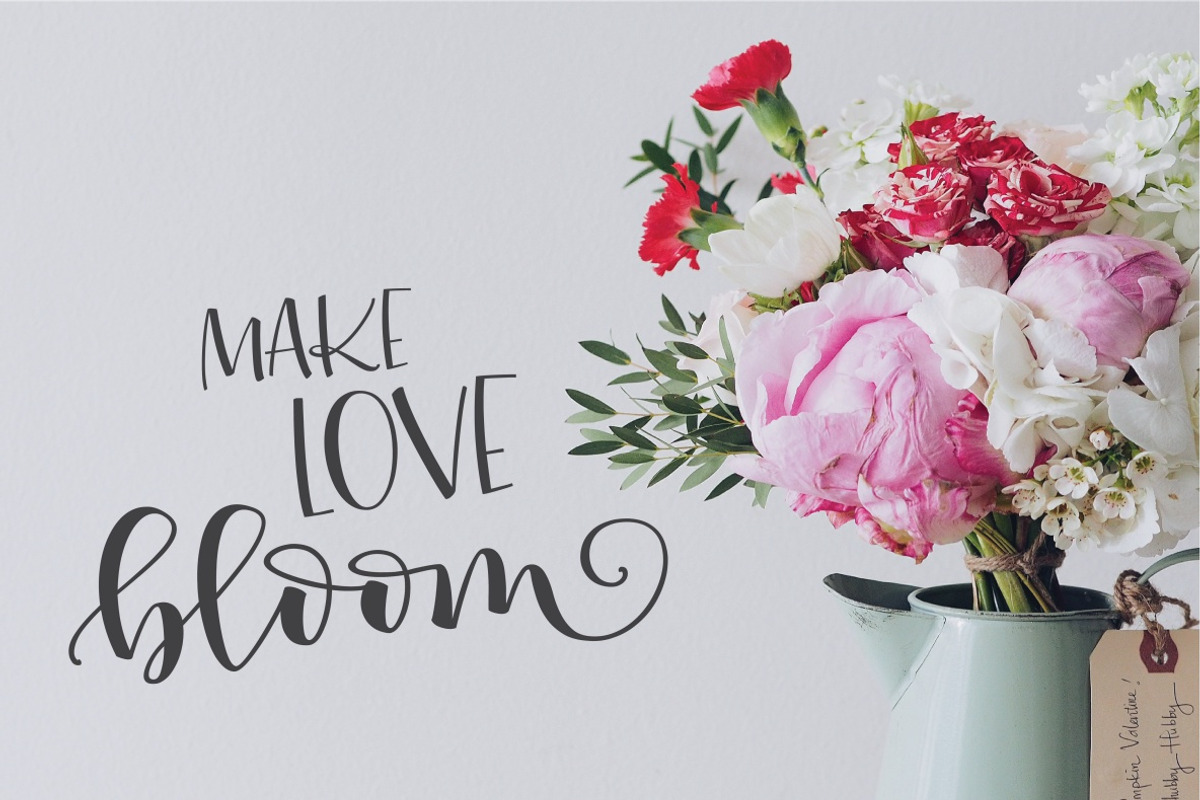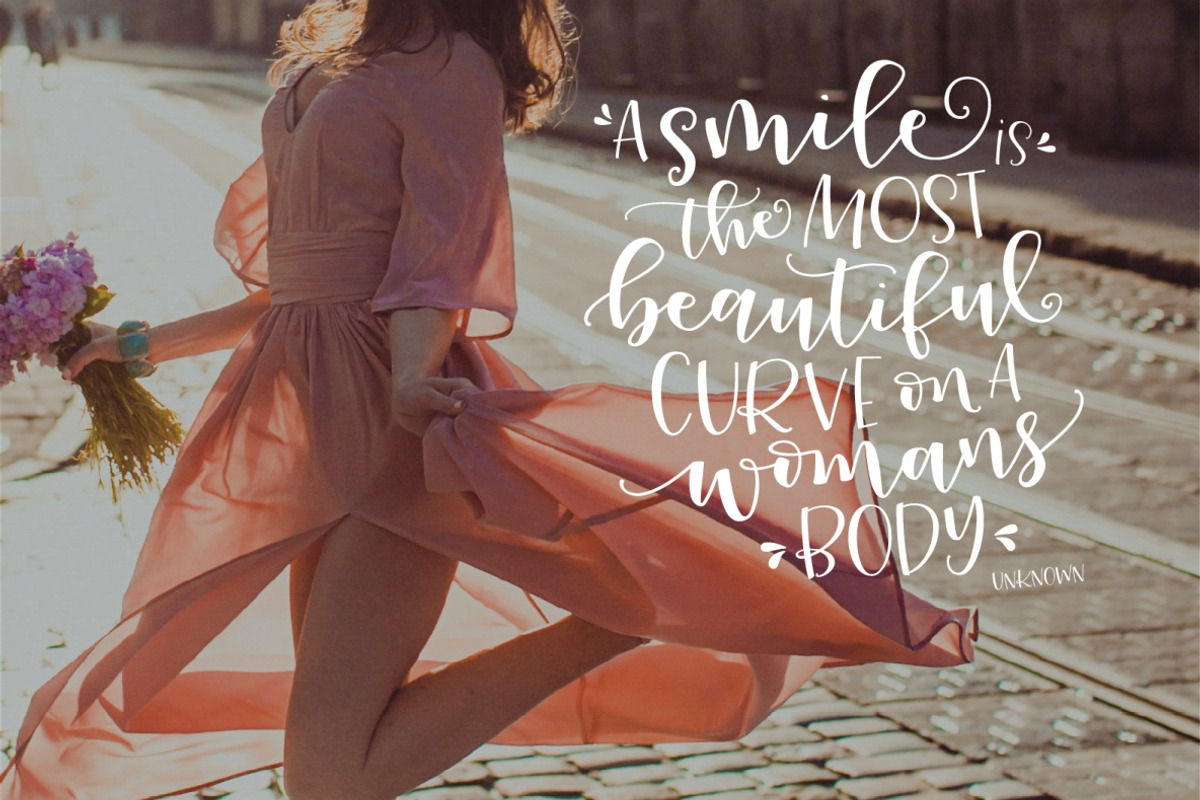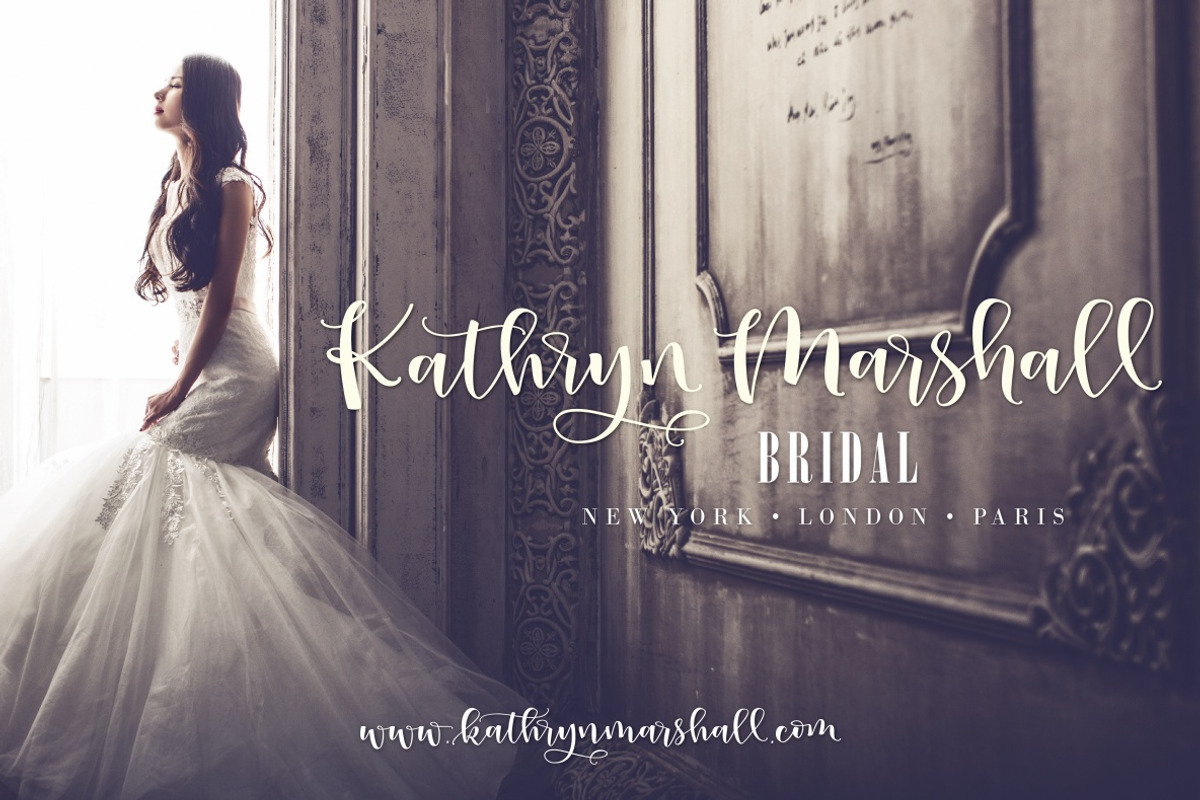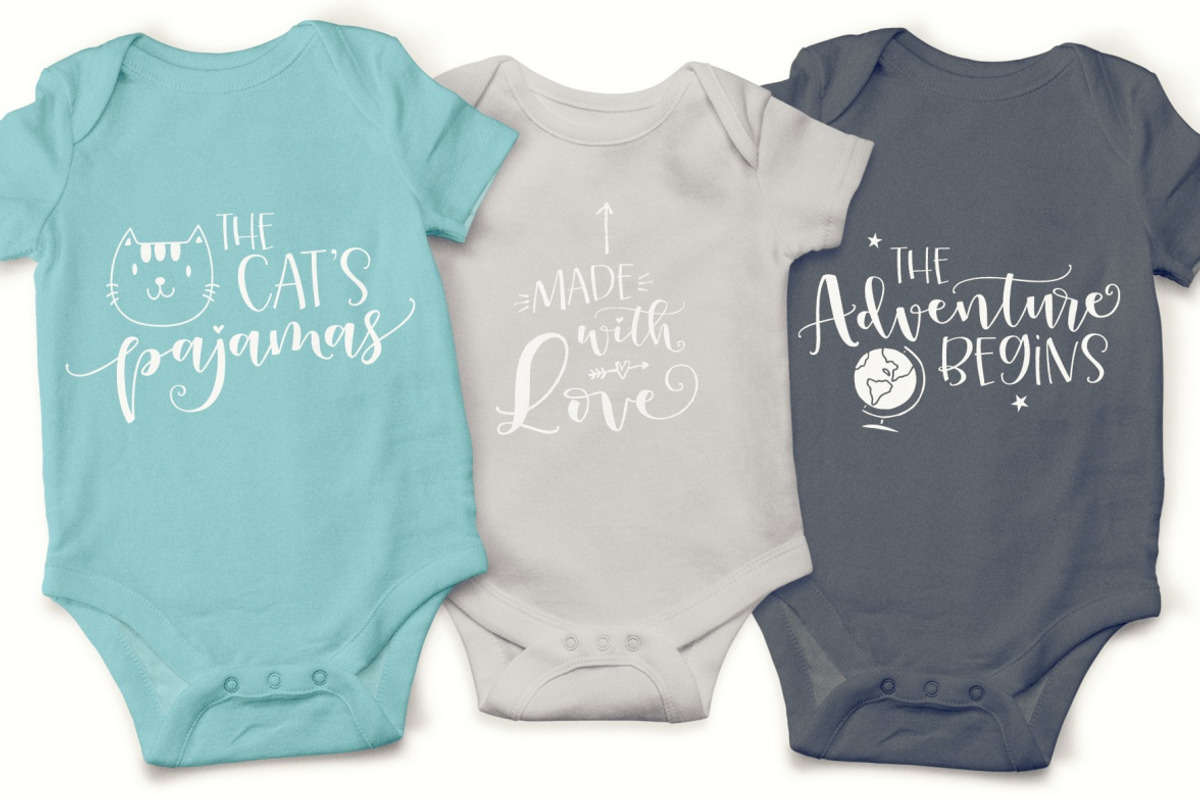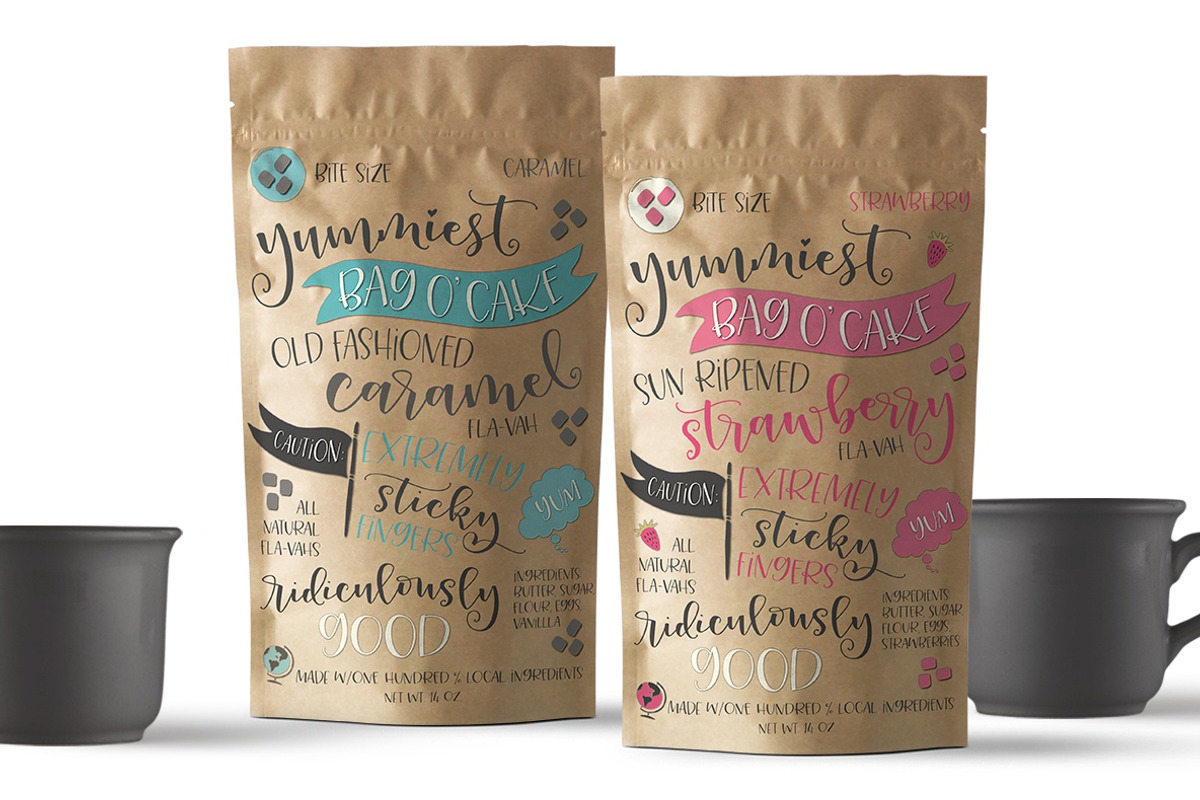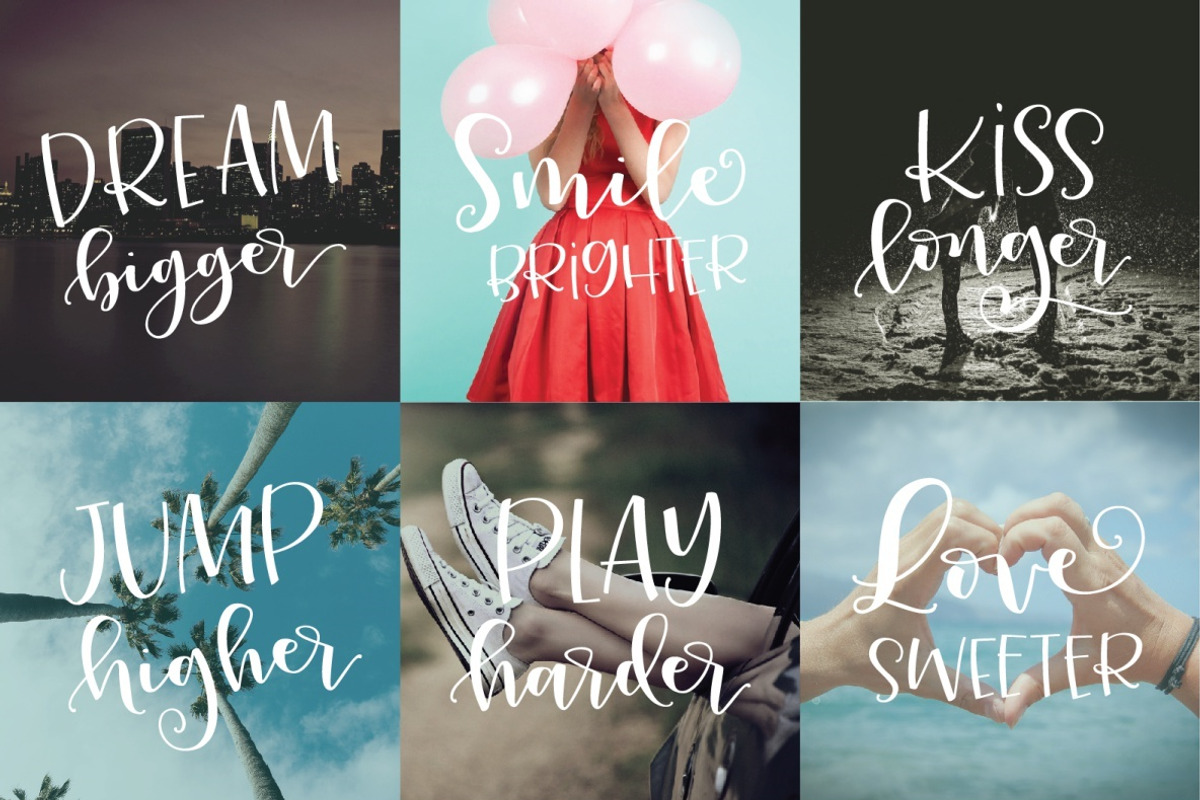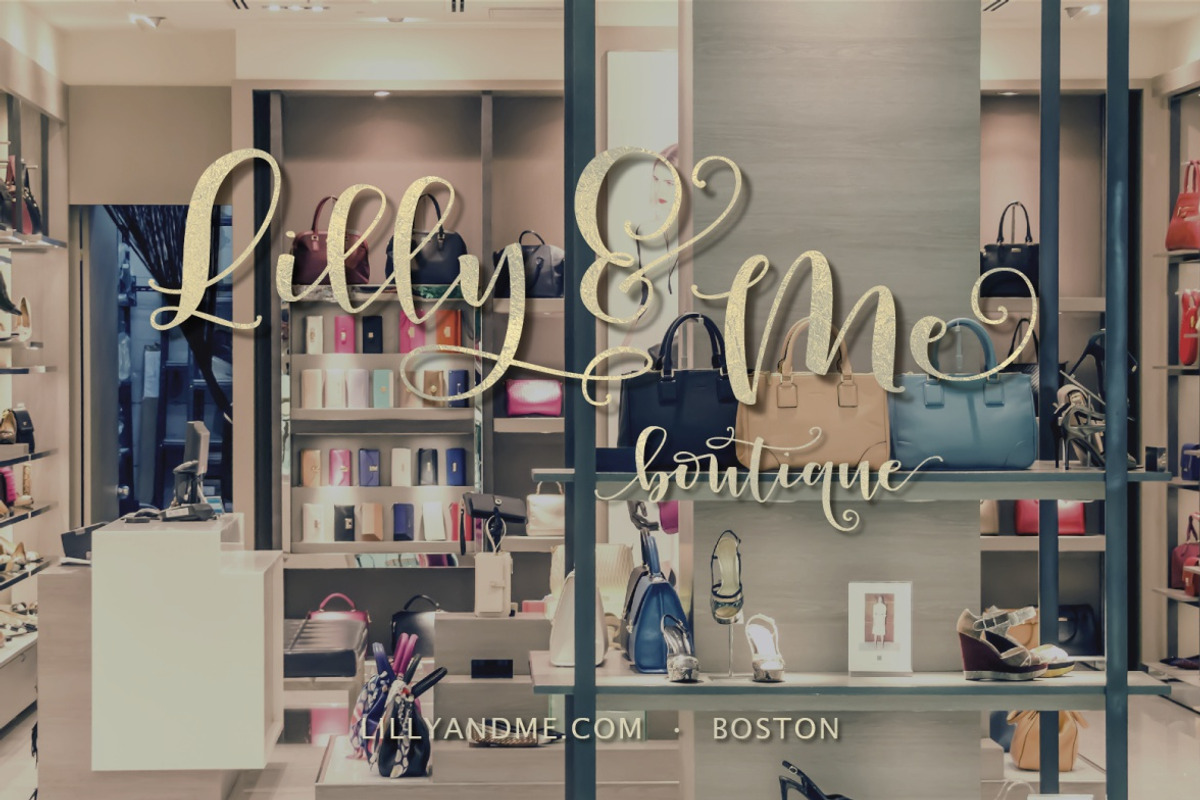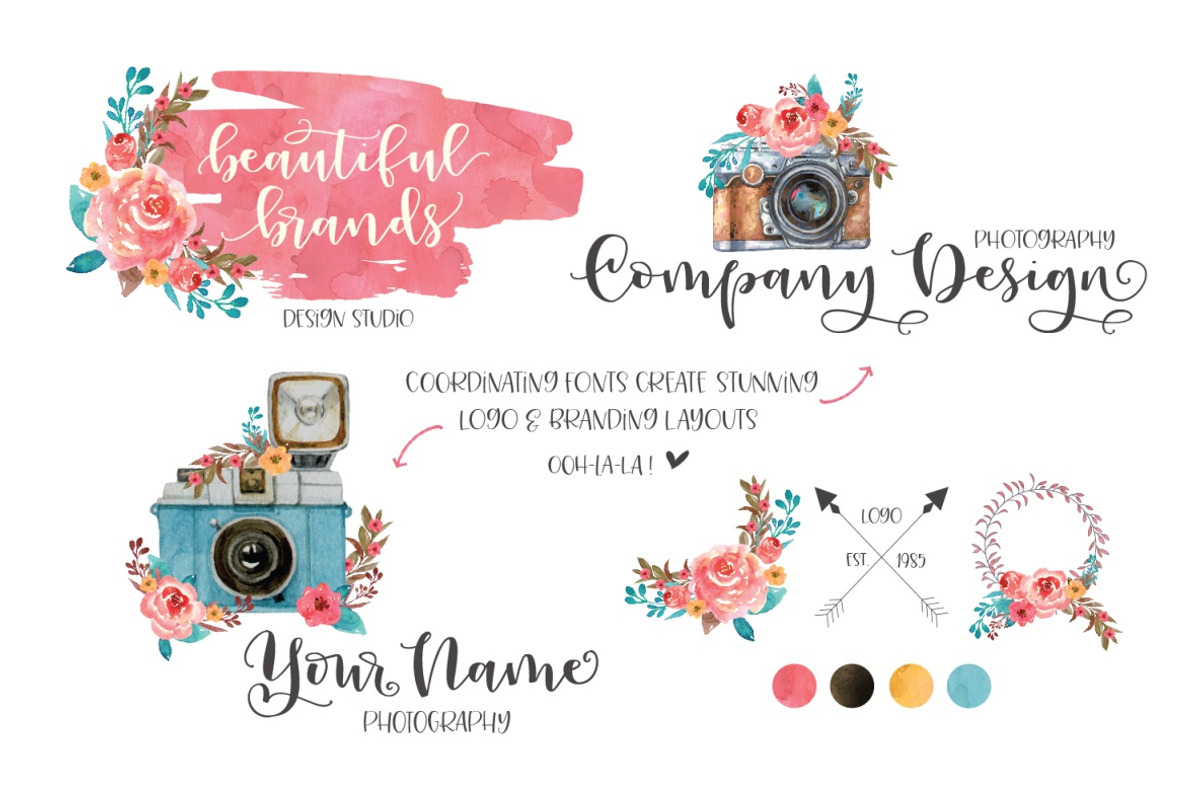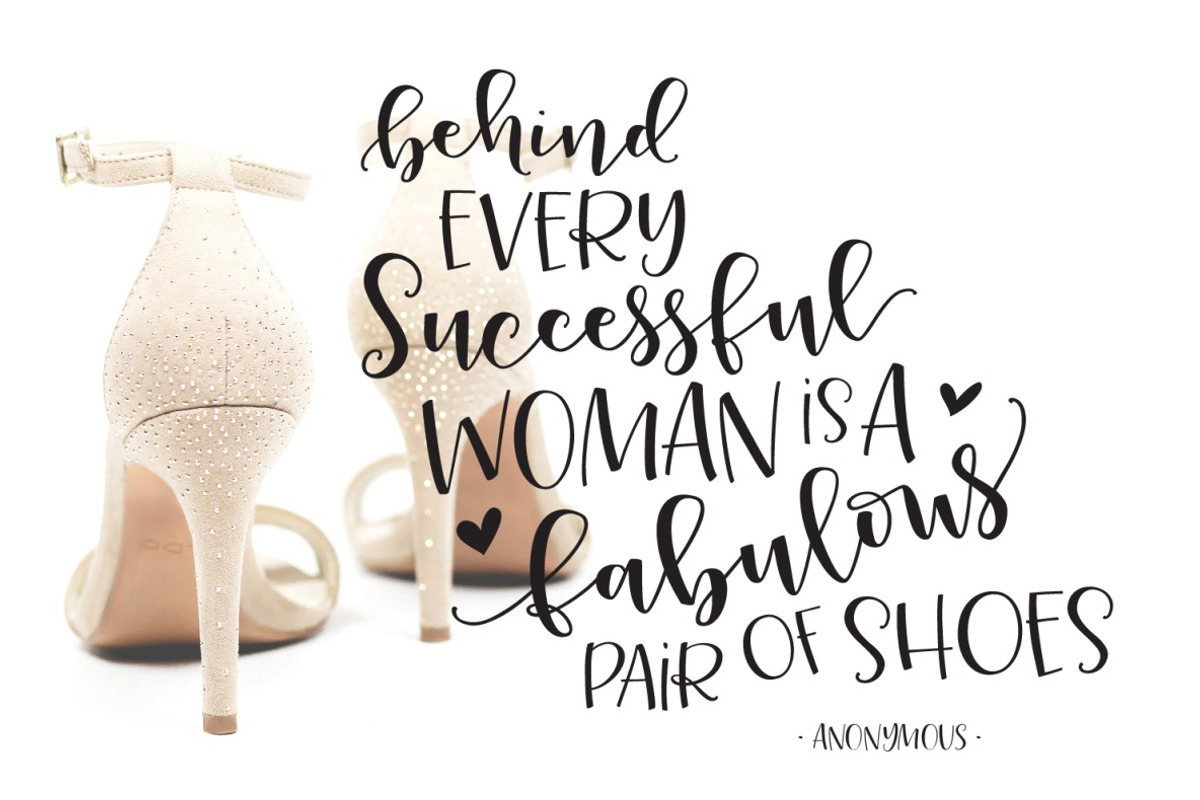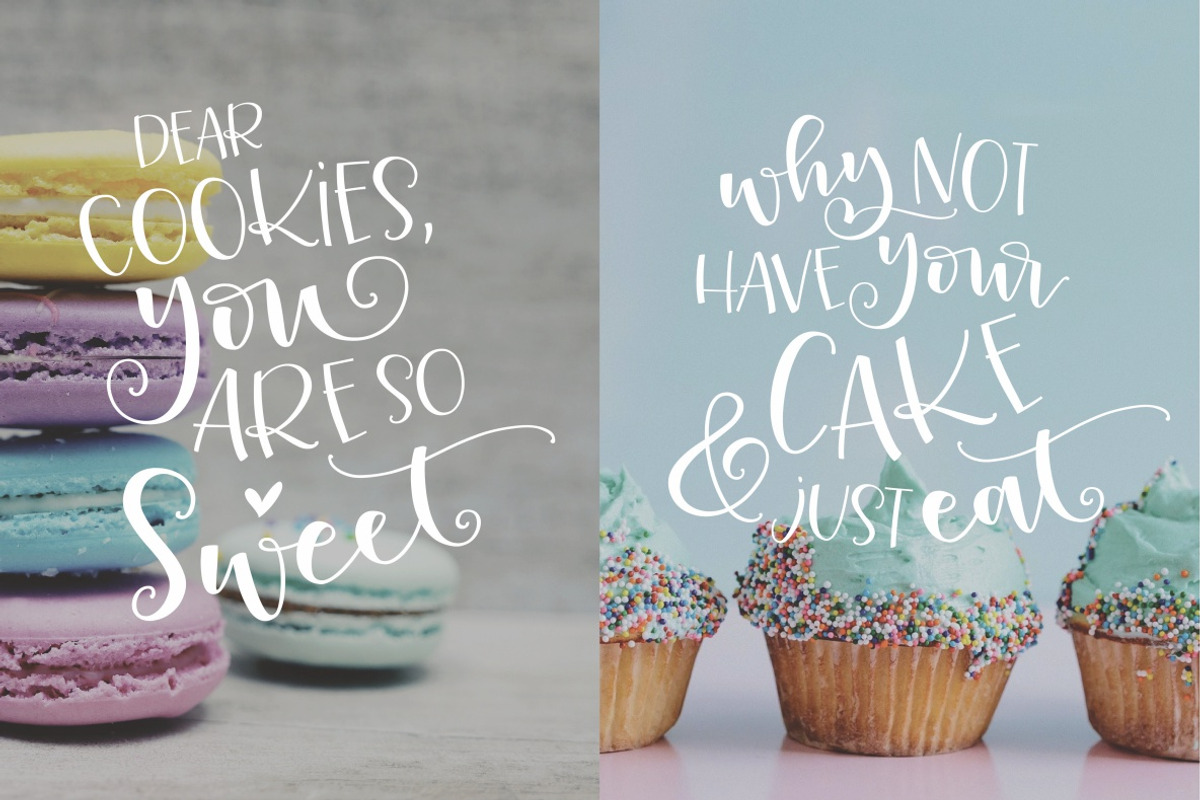
Peony Blooms Font Duo
Hello designers, Lettering lovers, & Font addicts! Please allow me to introduce Peony Blooms! A carefully crafted hand lettered font pair.
A charming combination of a stylish, bouncy script and a playful hand-written Sans. Use them best together, or even on their own. Either way - you get both fonts. This universal font will extend your font collection. Create cute and playful designs, or dress it up and create stylish and chic brands.
Peony Blooms Script
Peony Blooms Sans
12+ Lower-case styles
Alternate Upper-case
Standard Ligatures
Discretionary Ligatures
\\ Multi-lingual Glyphs, International & Special Punctuation\\
International & Special Punctuation